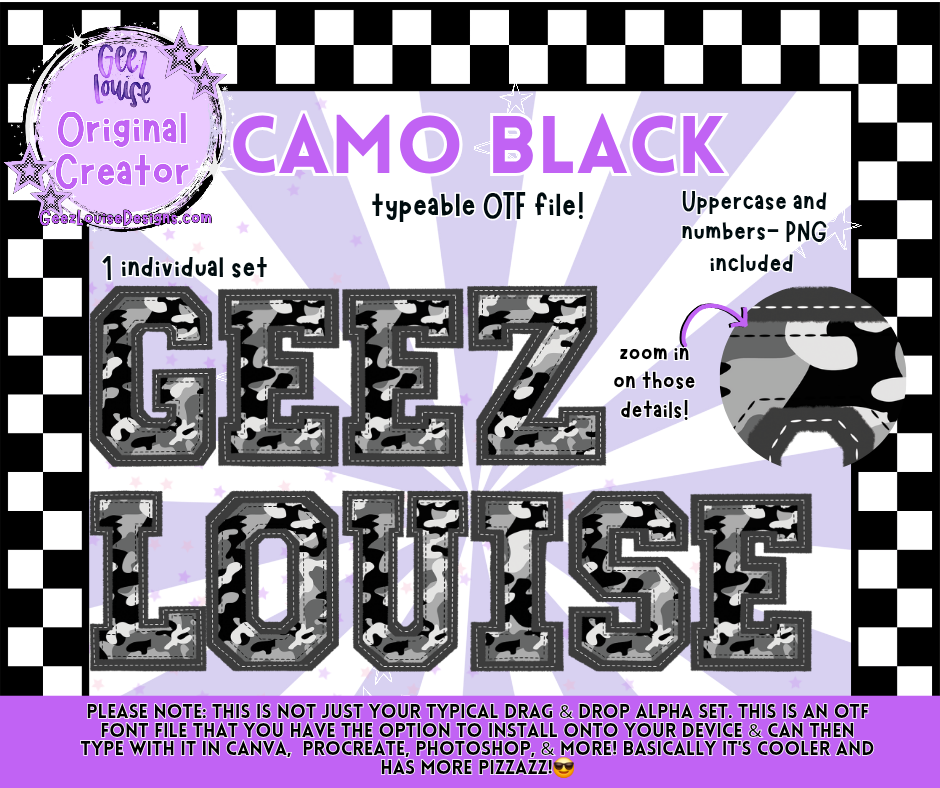
CAMO BLACK — Typeable OTF Font + PNG
Stitched chaos. Star-powered camo. Built to stand out.
CAMO BLACK isn’t here to blend in—it’s here to dominate. This typeable OTF font from Geez Louise brings stitched camo textures, star accents, and punk precision to every letter. Whether you're designing merch, crafting alt graphics, or just need your type to hit harder, this font’s got the grit and the glam.
Not your average drag-and-drop alpha—this is installable, editable, and full of punk pizzazz
Designed for alt creators, merch makers, and chaos conjurers
Zoom-worthy details that hold up in any layout